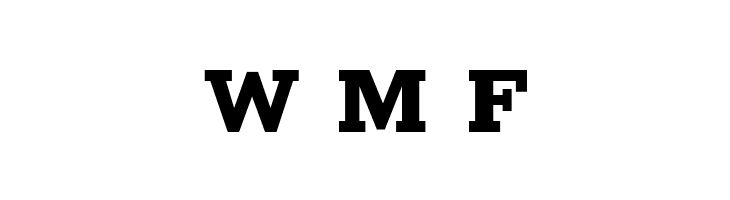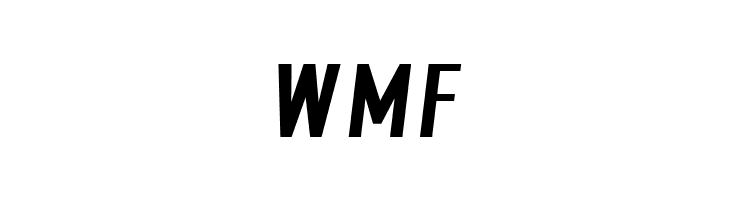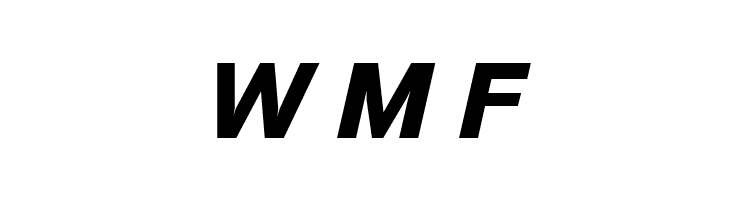
A bold, high-contrast serif typeface with a modern yet classic appeal.
A bold serif typeface with dynamic strokes and elegant curvature.
A bold, italic serif font with dynamic movement and classic elegance.
A bold, rounded font with a playful yet structured style.
A bold, geometric sans-serif typeface with a modern and clean design.
A bold, geometric typeface with strong, uniform strokes and modern appeal.
A modern, extra bold sans-serif font with clean lines and excellent readability.
A bold, italic sans-serif font with a modern and dynamic style.
A bold serif typeface with strong, authoritative strokes and pronounced serifs.
A bold, semi-condensed font with a modern and impactful style.
A bold slab serif font with strong, block-like serifs and consistent stroke widths.
A bold, expanded typeface with strong, well-defined characters.
A bold and italicized typeface with a modern and dynamic style.
A bold, serif font with strong strokes and classic appeal.
A bold, modern sans-serif font with a geometric and clean style.
A bold, italicized typeface with a modern, geometric design.
A bold, italic serif font with classic elegance and strong presence.
A bold, classic serif font with high contrast and elegant letterforms.
A bold, modern sans-serif font with clean lines and geometric shapes.
A bold, modern typeface with clean lines and strong visual impact.
A bold, italic typeface with a modern and dynamic style.
A modern, bold sans-serif font with clean lines and excellent readability.
A modern, extra bold sans-serif typeface with italic styling.
A bold, modern sans-serif font with clean, uniform letterforms.
A modern, bold, and italic font with a sleek and dynamic design.
A bold, modern sans-serif font with a clean and confident appearance.
A bold, extended, and oblique font with a modern and dynamic style.
A bold, brush script font with dynamic and expressive strokes.
A bold, italicized font with a dynamic and modern style.